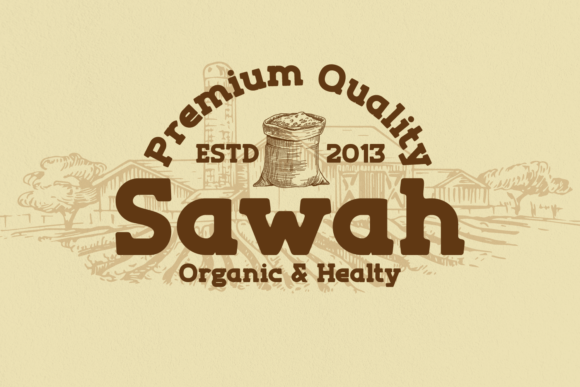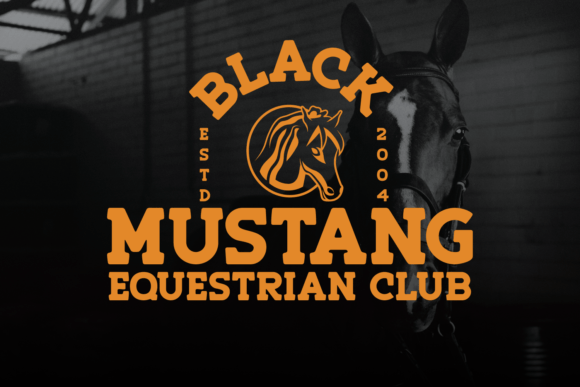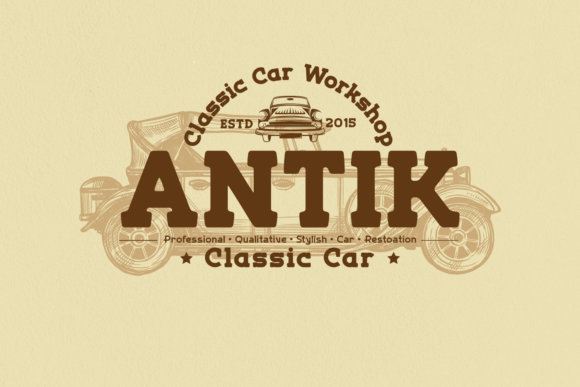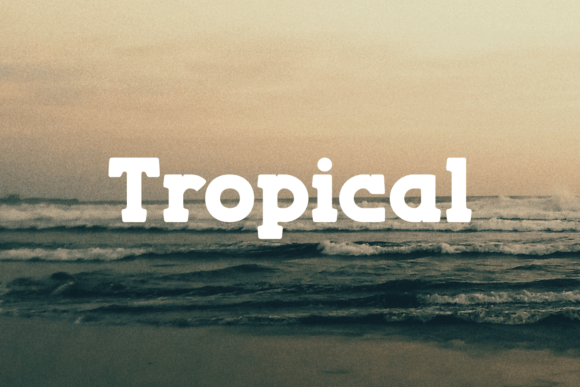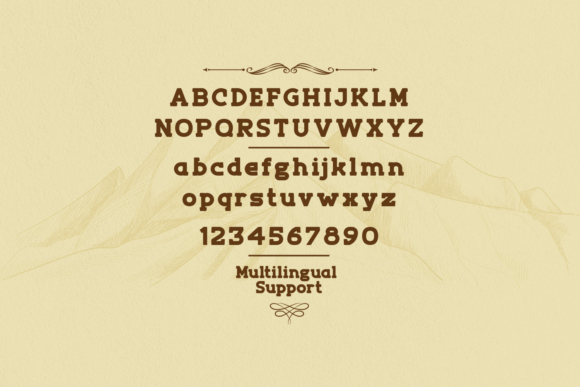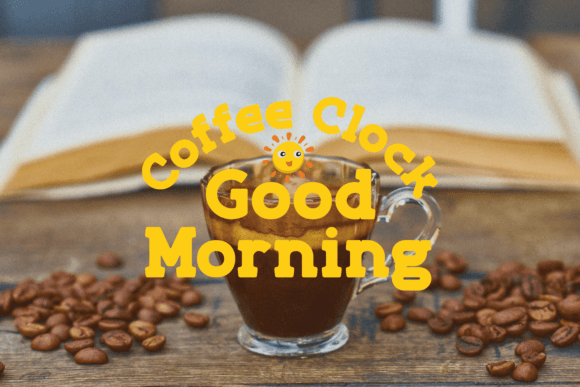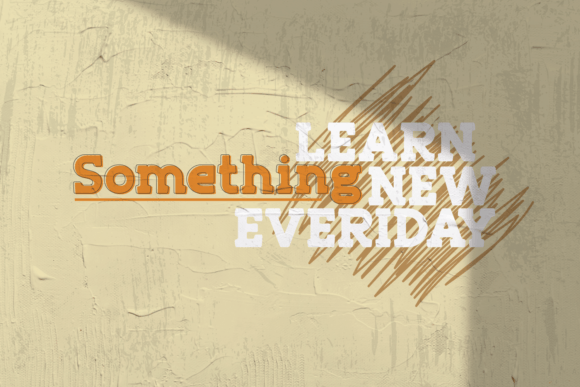
Mount
Mount: A Modern and Bold Slab Serif Font
Mount is a feel-spirited modern slab serif font designed for titling, captions, and logos. This versatile typeface offers both round and rough shapes, distinguishing it from the Simple Note font while maintaining its own unique character[3].
Key Features of Mount
• Bold Design: Offers strong, impactful letterforms.
• Dual Shapes: Features both round and rough variations.
• Modern Style: Brings contemporary appeal to designs.
• Versatile Application: Perfect for various display purposes.
Best Uses for Mount
Thanks to its distinctive characteristics, Mount works especially well for:
When using Mount in your designs, keep these tips in mind:
• Try both round and rough variations for different effects.
• Use it for headlines or display text to showcase its bold style.
• Take advantage of its mood-elevating character[3].
• Consider it especially for product packaging designs[3].
To sum up, Mount is an excellent choice for designers seeking a bold and modern slab serif font. Its versatility makes it perfect for various display purposes. Whether you’re creating titles, designing logos, or developing product packaging, Mount offers the perfect blend of contemporary style and bold character.
Furthermore, Mount’s distinctive design allows it to shine in contexts where both impact and versatility are key. For instance, from captions to creative projects, this font can elevate your designs with its unique style. Also, its dual shape options provide additional creative flexibility for different design needs.
In conclusion, Mount truly captures the essence of modern display typography in slab serif design. Its ability to enhance various applications while maintaining its feel-spirited nature makes it a valuable tool for creative expression. Therefore, for those wanting to add a touch of bold sophistication to their work, Mount can transform any design with its distinctive style. Ultimately, it’s perfect for designers aiming to make a strong, contemporary impact across display-oriented projects.